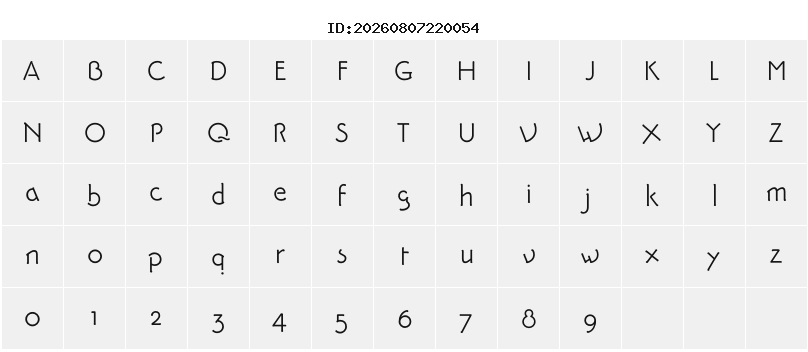
• Font Name: PykesPeakZero
• Designer: James Arboghast
• Description: P Y K E ' S P E A K a s e n t i n e l t y p e designed by James Arboghast Pyke's Peak is a spirit type descended from Paeleoflex: The Angel of the Odd. Wraith-like forms mix Roman inscriptional letters with an ar'deco theme for an ethereal graphic art effect. Suitable for magazines and editorial design, book jackets & interiors, posters & broadsides, art & craft objects and other things needing a touch of the extraordinary. Over 500 extra characters give Pyke's Peak unusual range and ability. Mirror capitals, phantom forms, dot phantoms, "superposed" ligatures, capitalized ligatures and fitted pairs for hours of trippy rub-down arcadian magic. Includes hanging numerals, lining numerals, full punctuation, standard math & monetary symbols. Accented characters for Latin 1 and Latin 2 cover the following languages: Albanian, Catalan, Danish, Dutch, English, Estonian, Finnish, French, German, Icelandic, Italian, Norwegian, Spanish and Swedish. This typeface is dedicatet to Australian musician James "Jock" Paull, who is a free spirit.
About PykesPeakZero.otf
PykesPeakZero.otf is a modern, elegant sans-serif font designed for ultimate readability and visual harmony. Perfect for branding, headlines, web design, and print materials.